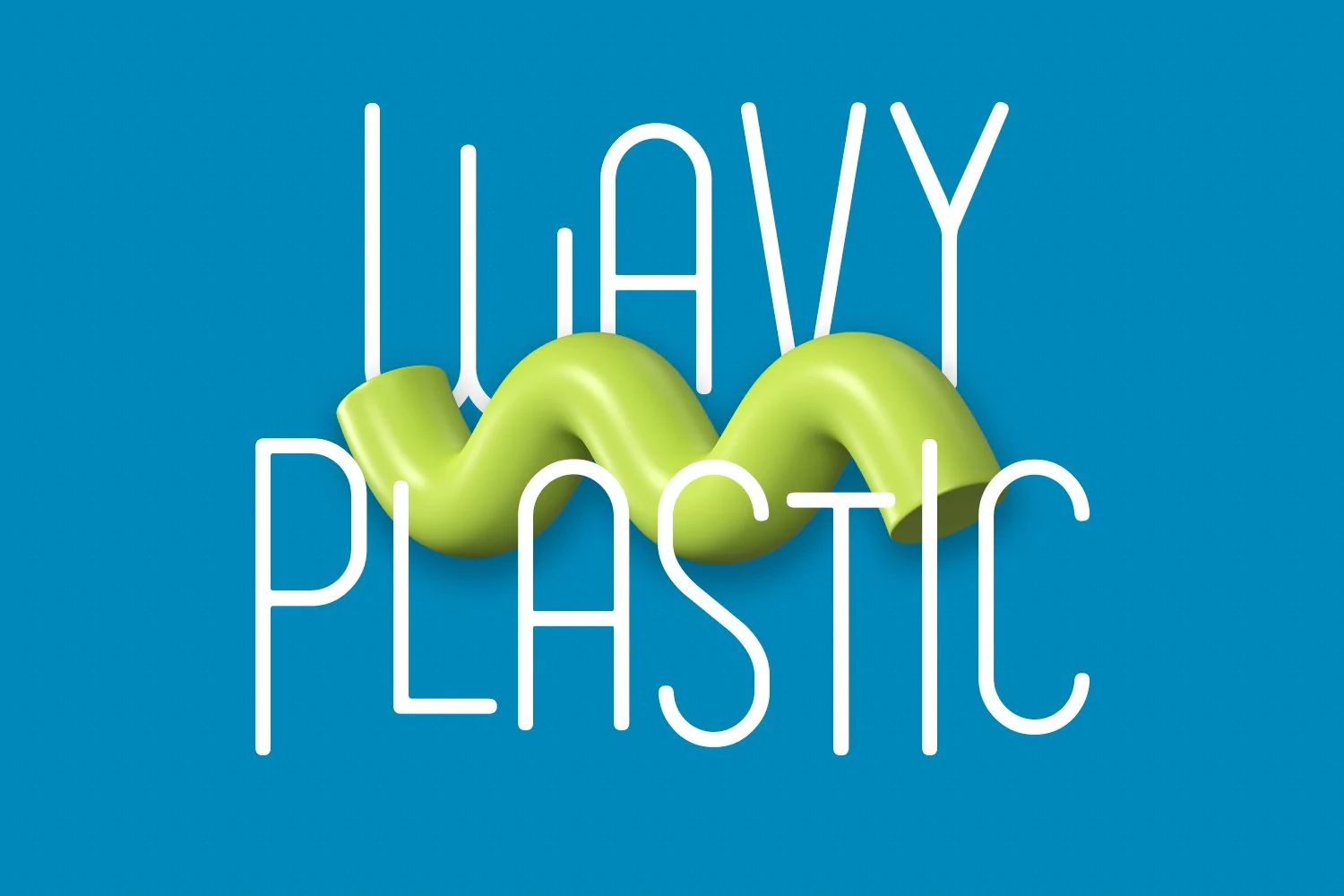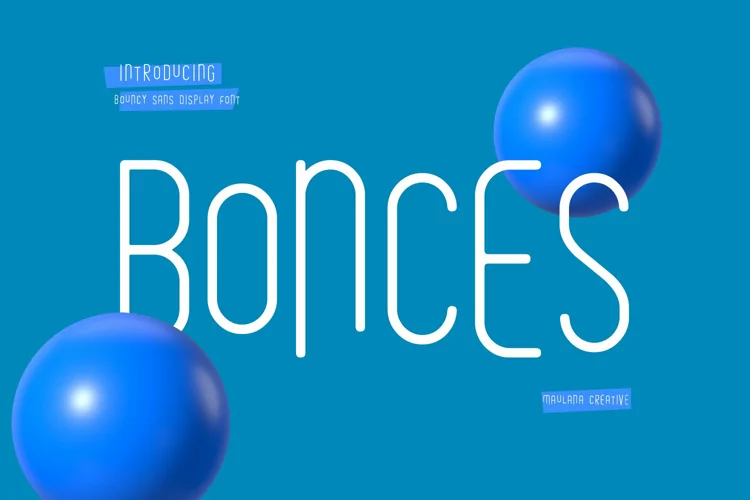
Bonces is a Bouncy experiment of clean light sans serif font. Light stroke, fun character with a bit of ligatures and alternates. To give you an extra creative work. Bonces font support multilingual more than 100+ language. This font is good for logo design, Social media, Movie Titles, Books Titles, a short text even a long text letter and good for your secondary text font with script or serif. Make a stunning work with Bonces font.